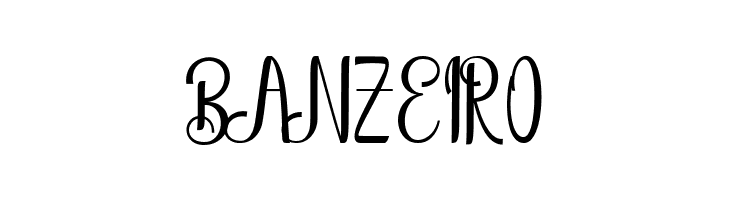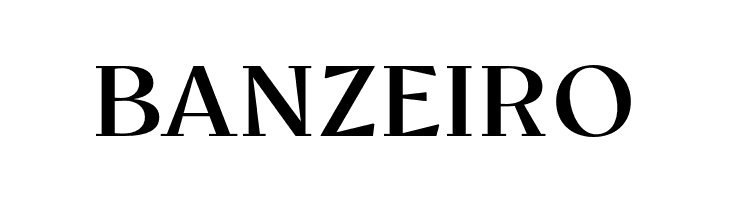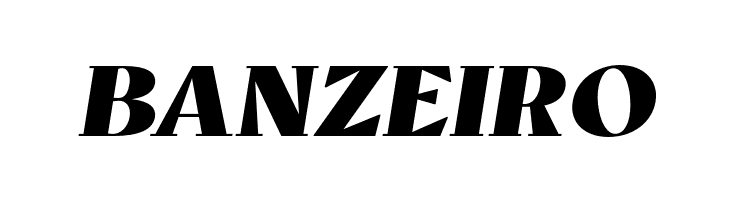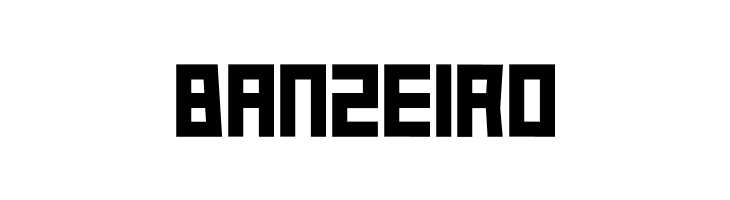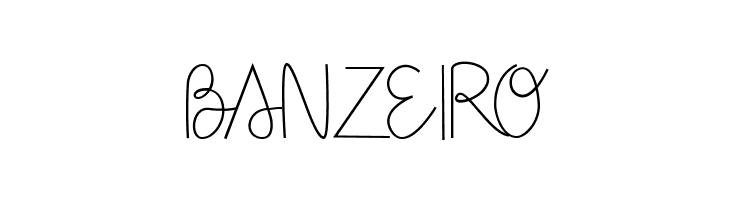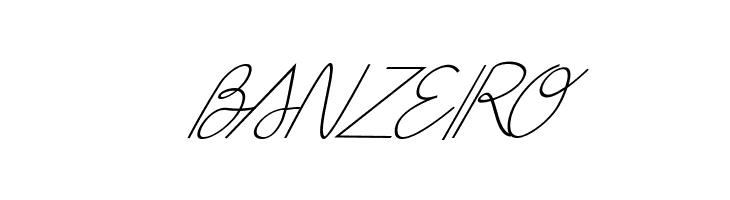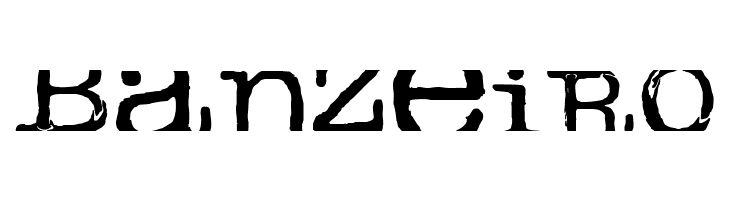
A bold, textured font with a vintage, handcrafted appearance.
A stylish and elegant script font with flowing, interconnected letterforms.
A dynamic and fluid script font with elegant, flowing letterforms.
A stylish, flowing script font with a natural handwriting feel.
Art Nouveau-inspired ornamental designs with floral and geometric motifs.
A bold, serif font with strong strokes and a classic yet modern appeal.
A bold, italicized font with high contrast and dynamic style.
A modern serif font with elegant, refined letterforms and sharp serifs.
An elegant serif font with a slight italic slant and moderate stroke contrast.
A bold, rounded font with a modern and playful style.
A flowing, cursive font with elegant, sweeping strokes and a handwritten appearance.
A bold, rounded font with a modern and playful style.
A modern, geometric font with rounded edges and consistent stroke widths.
A modern, minimalist font with thin lines and geometric influences.
A clean, geometric font with rounded edges and consistent line weights.
A whimsical and artistic font featuring expressive, face-like characters.
An abstract, circular, and artistic font with thin, elegant strokes.
A bold, hand-drawn font with a playful and whimsical style.
A playful, handwritten font with a light and casual style.
A playful, handwritten font with rounded, organic characters and a friendly appearance.
A playful, handwritten font with whimsical curves and a casual style.
A bold, playful handwritten font with thick, rounded strokes.
A whimsical, handwritten font with elegant flourishes and playful curves.
A bold, dynamic script font with a handwritten, cursive style.
The image contains box-like symbols, not a valid font.
A bold, geometric font with a modern, angular design.
A playful, hand-drawn font with a bold and informal style.
A playful, handwritten font with a whimsical and flowing style.
A playful, hand-drawn font with thin, flowing lines and a whimsical style.
A flowing, cursive italic font with interconnected letters and a delicate, elegant style.
A flowing, elegant script font with a handwritten appearance.
A playful, hand-drawn font with rounded, bold characters.
A bold, handwritten-style font with dynamic, fluid strokes and medium contrast.
A bold, decorative font with abstract distortions and artistic cutouts.
A bold, geometric font with angular shapes and rounded edges, ideal for modern designs.